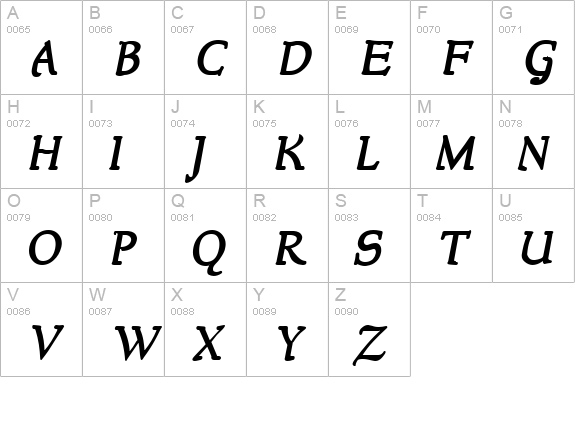
NewStyle Bold Italic is a strong, high-contrast, italic variant in the NewStyle typeface family \xE2\x80\x94 well suited to headlines, attention-grabbing titles, and strong calls-to-action.